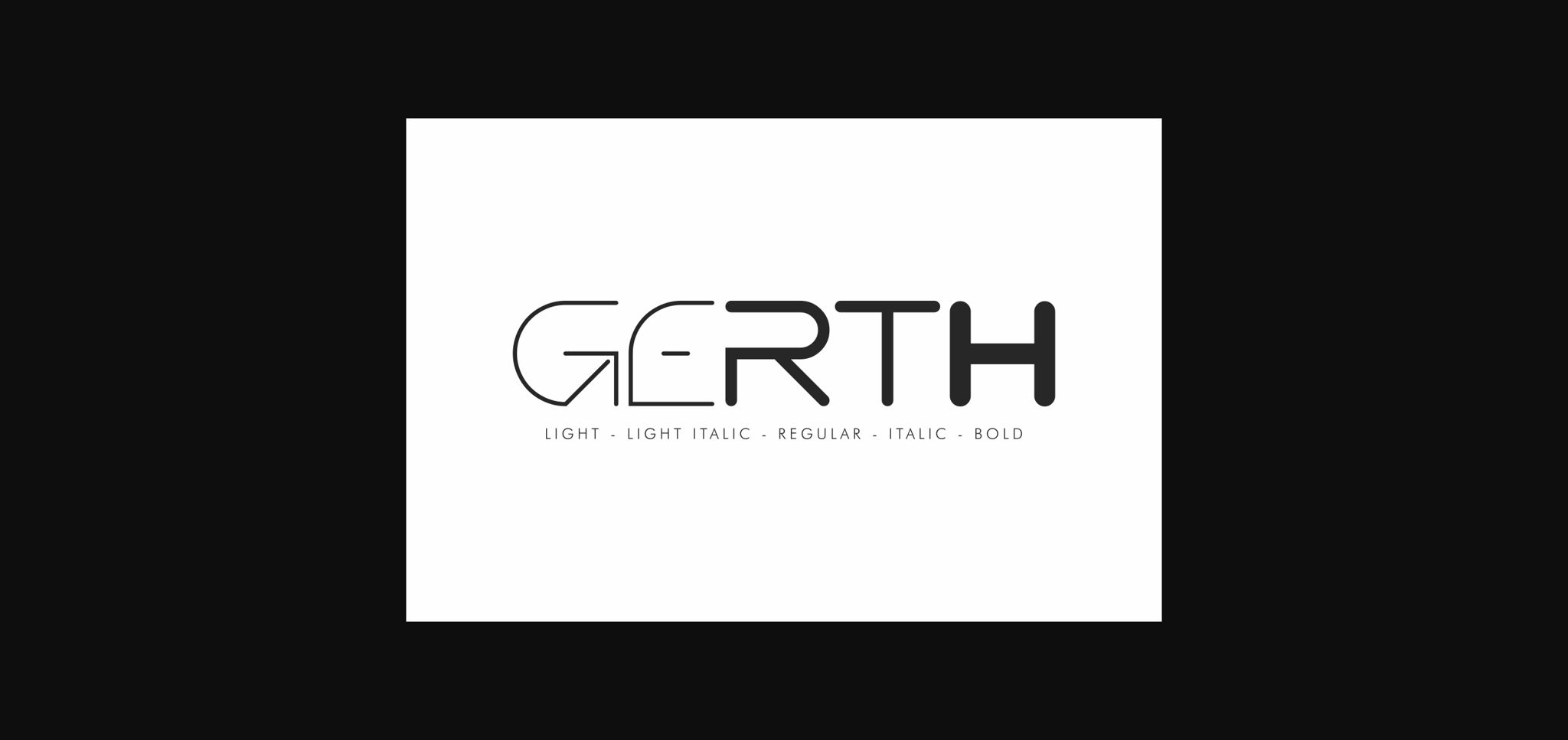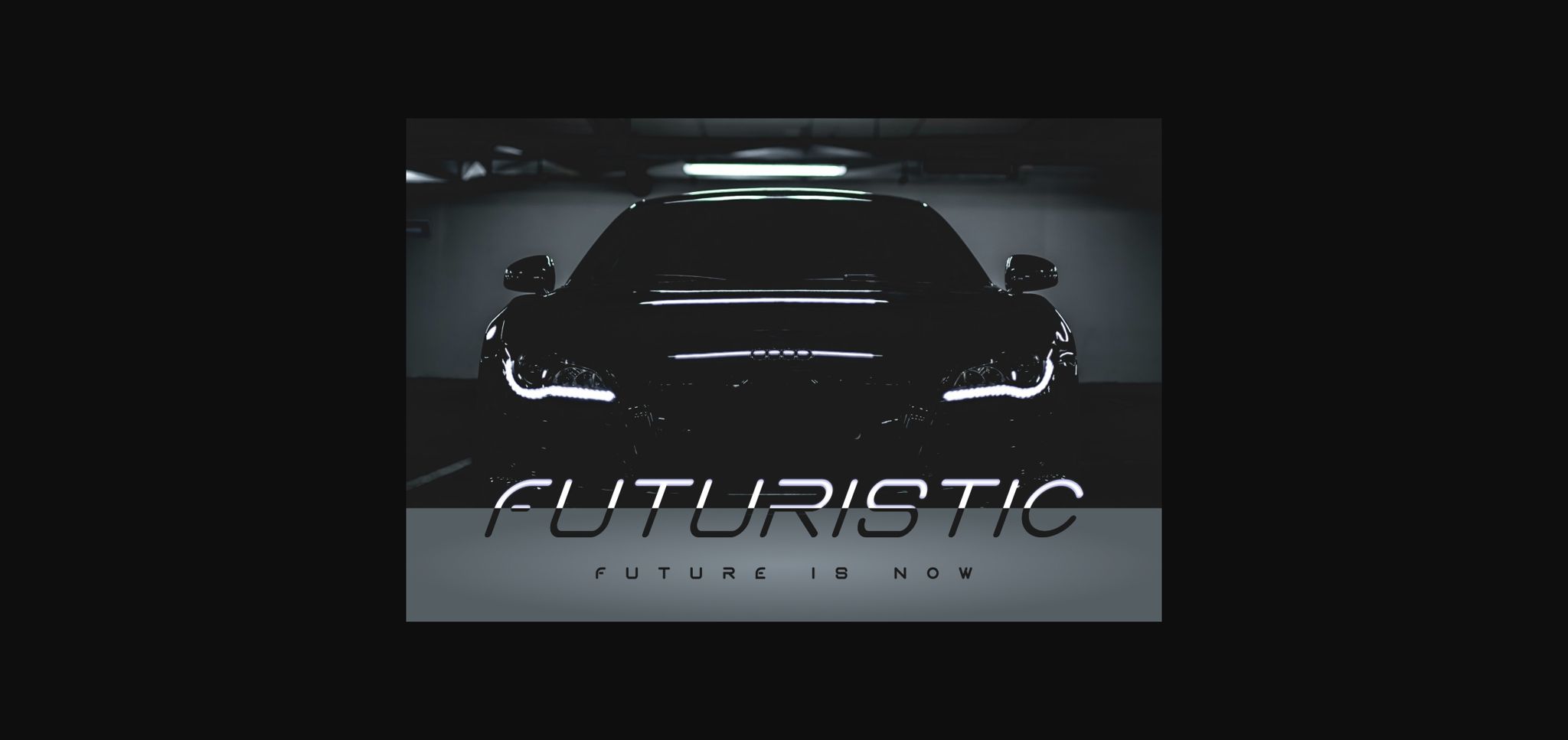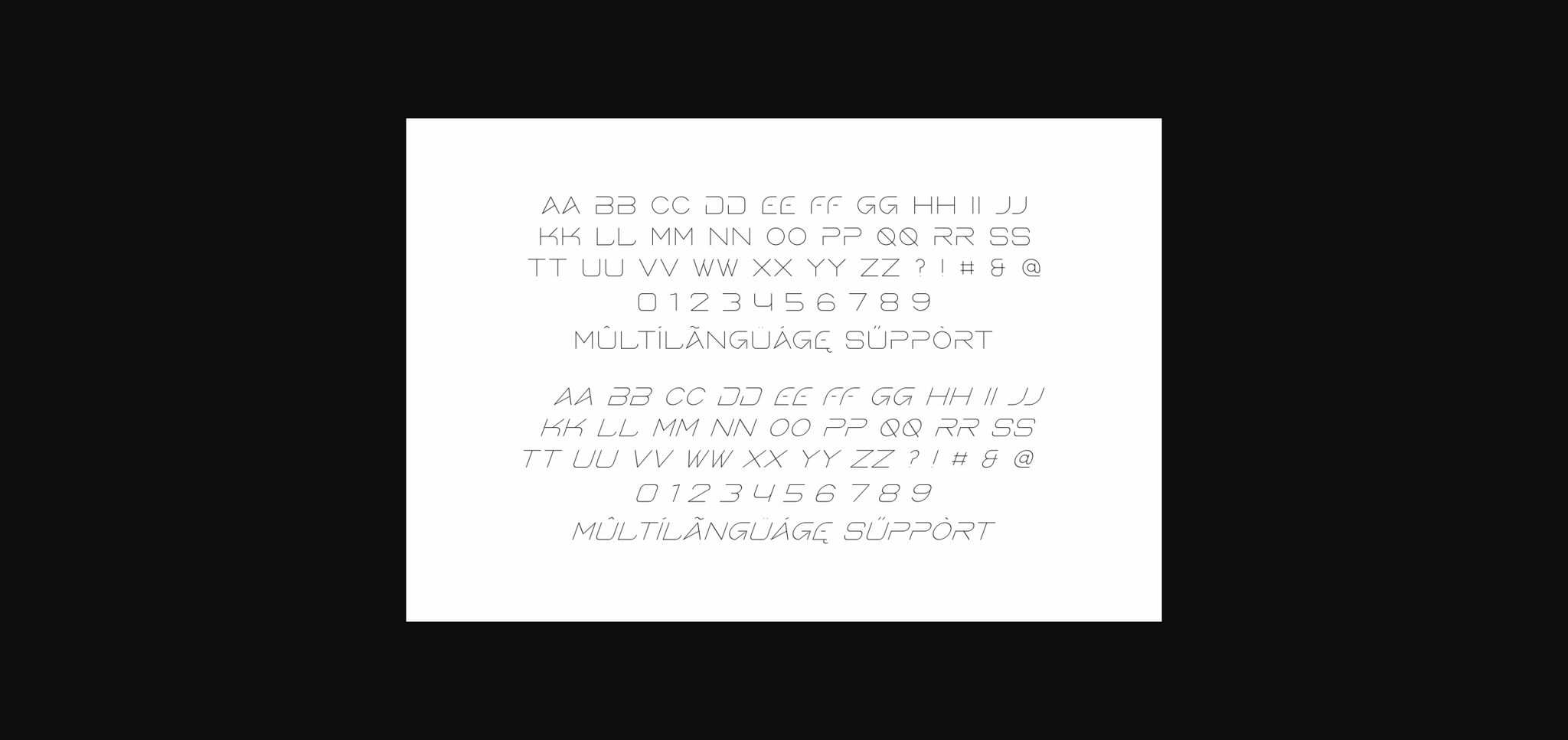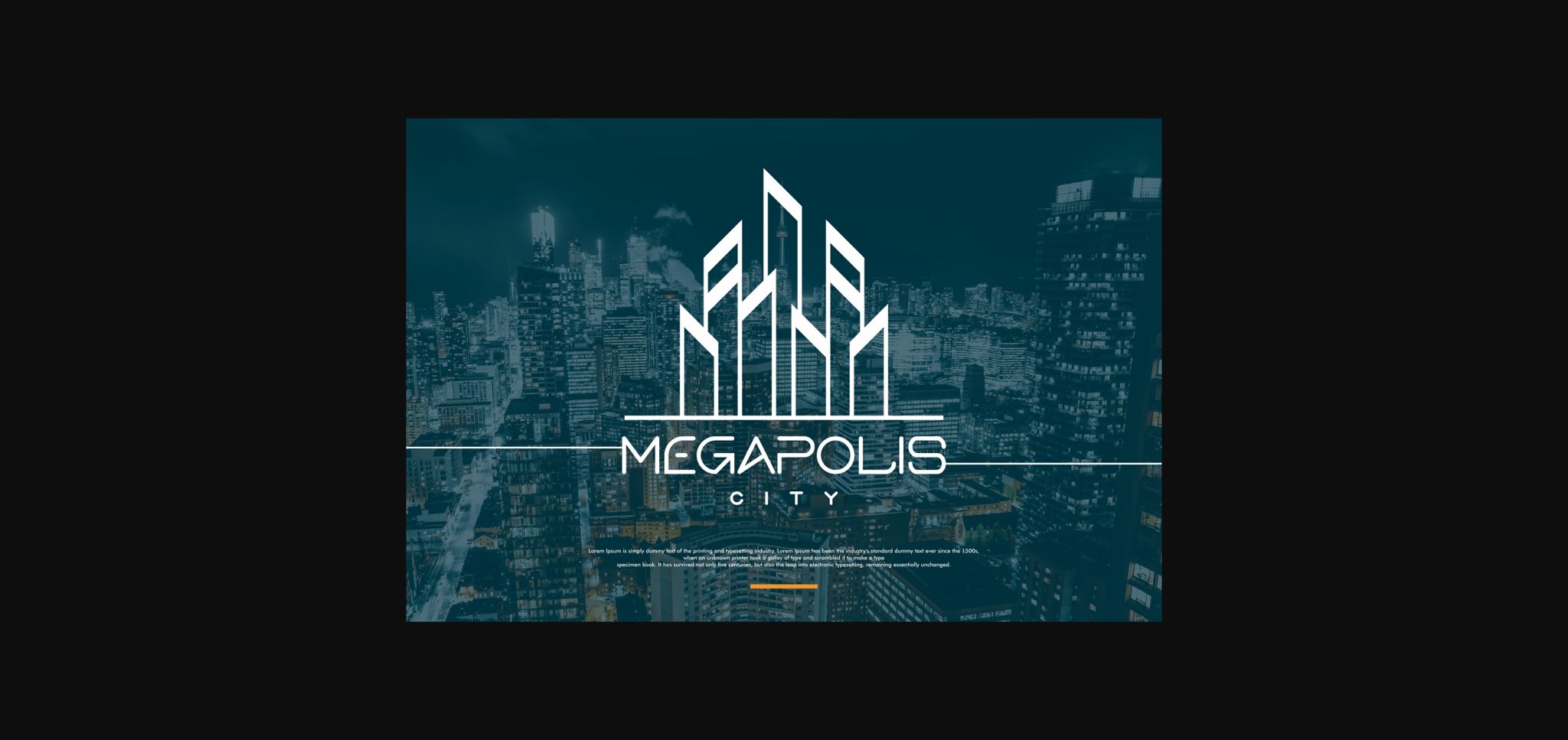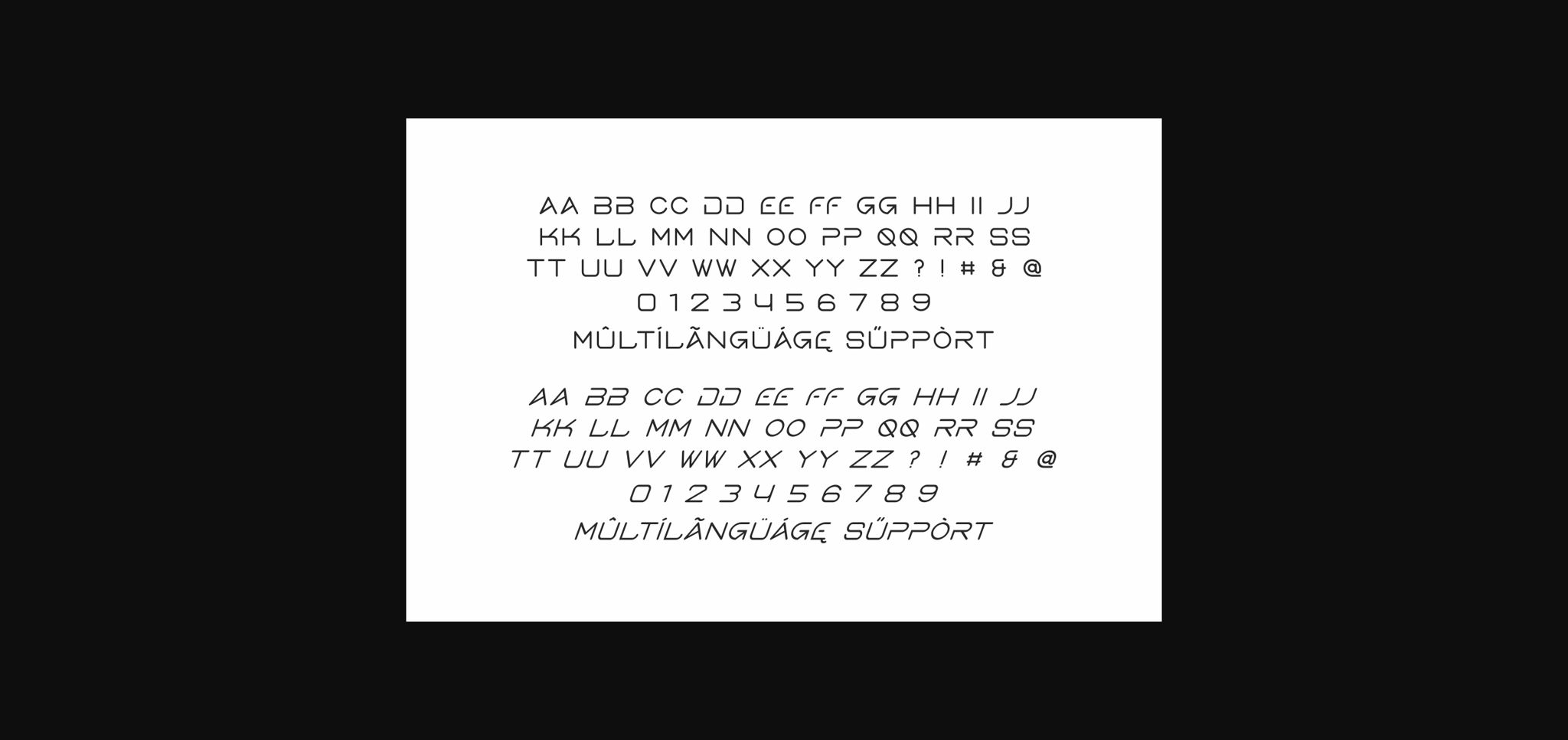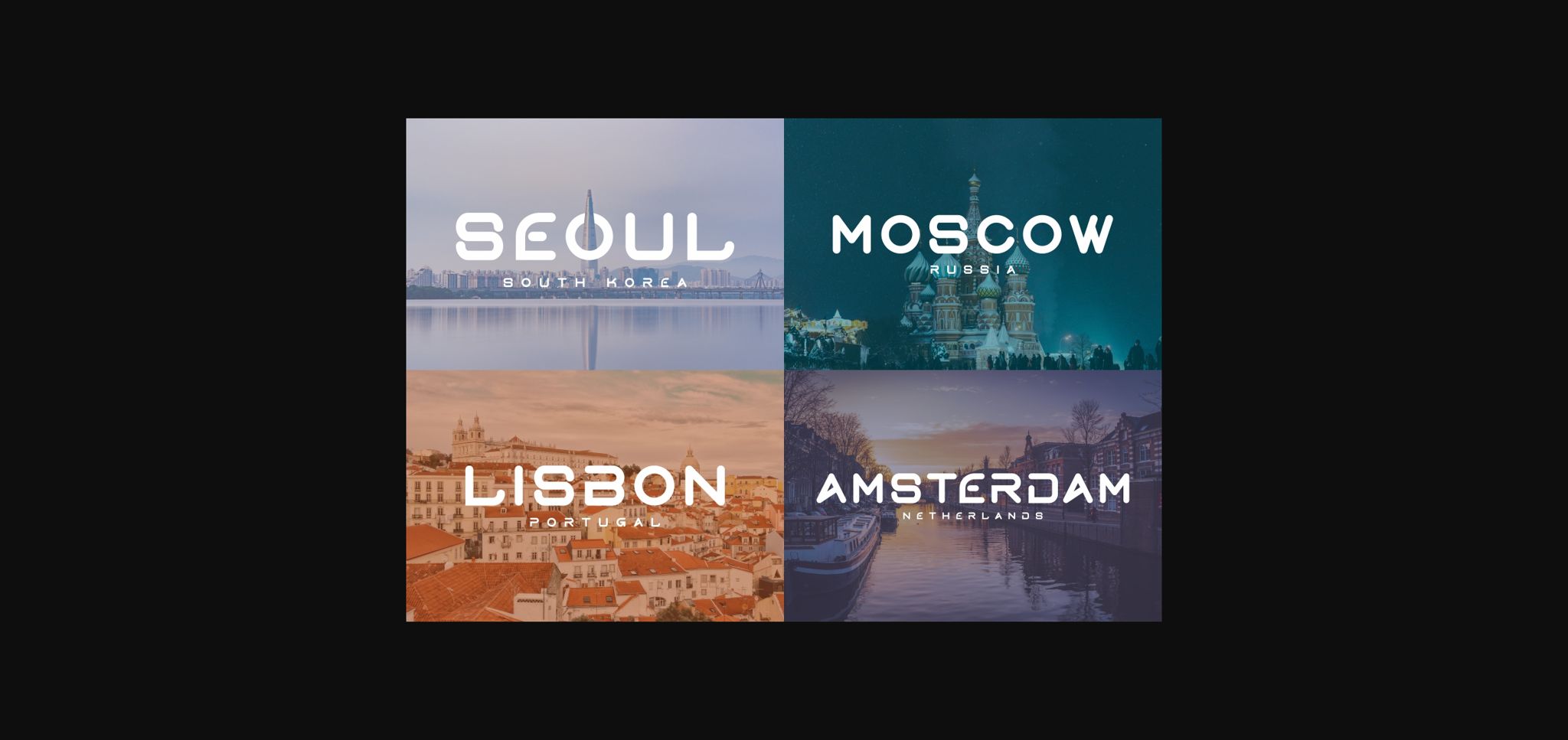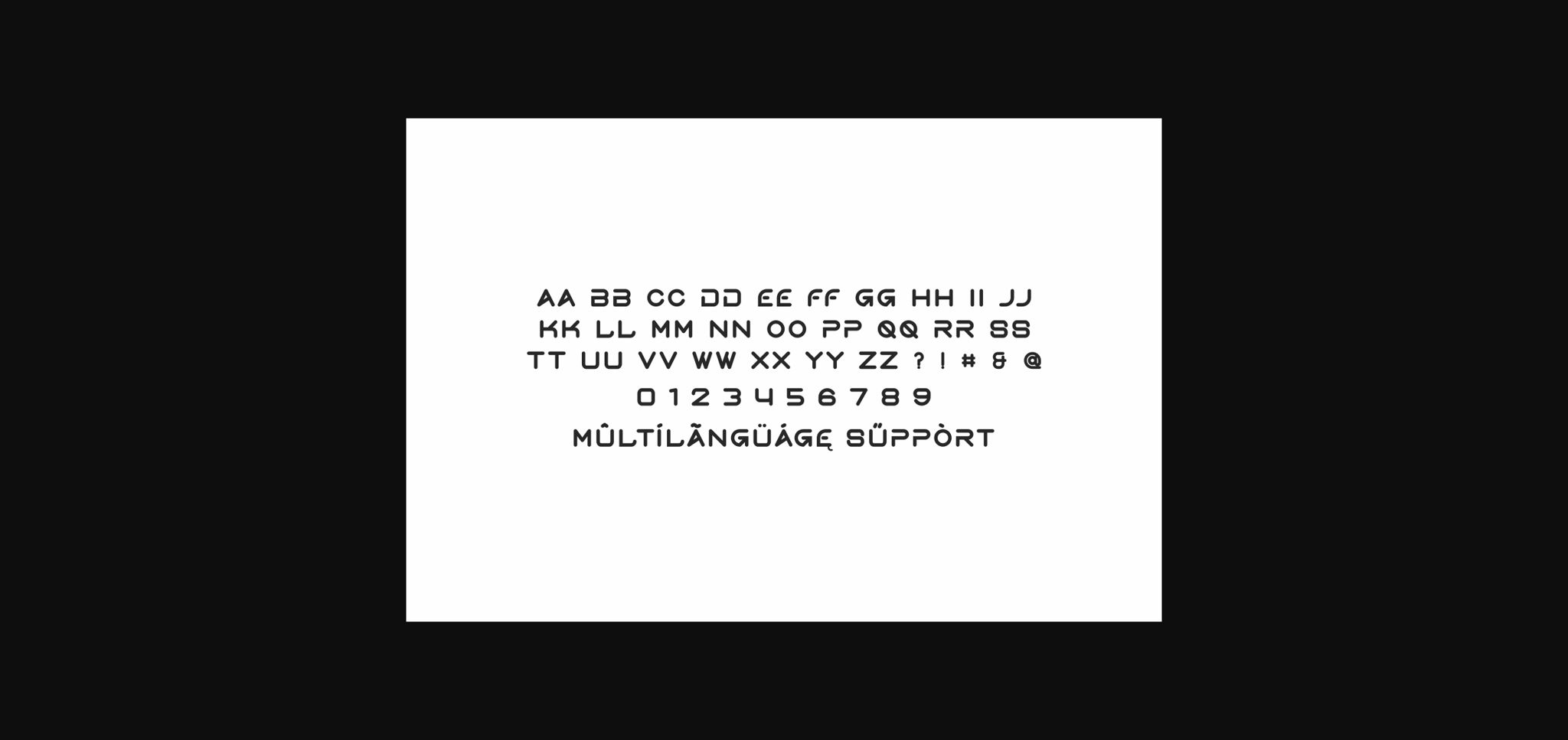
Gerth Font
About Gerth Font
Gerth stands out as an exceptionally original duo sans serif font, offering a unique and versatile style that is sure to captivate designers and audiences alike. With its distinct character and adaptability, Gerth opens up a world of creative possibilities, allowing you to create truly spectacular designs that leave a lasting impression.
What sets Gerth apart is its dual nature, comprising two distinct yet complementary styles within a single font family. This versatility gives you the freedom to explore a wide range of design concepts and applications, from sleek and modern to bold and expressive, all while maintaining a cohesive visual identity.
Whether you’re crafting logos, headlines, branding materials, or web layouts, Gerth’s versatility ensures that it can adapt to any project with ease. Its unique style adds a touch of originality and creativity to your designs, helping them stand out in a crowded marketplace.
Gerth’s versatility extends beyond its aesthetic appeal to its practical utility. Its clean lines and well-defined letterforms ensure readability and legibility across various platforms and mediums, whether it’s viewed on screens or in print. This ensures that your message is communicated effectively to your audience, enhancing engagement and retention.
Furthermore, Gerth’s originality makes it a valuable asset for creating memorable and impactful designs. Whether you’re working on a branding project, a marketing campaign, or a digital product, Gerth’s distinctive style helps you make a statement and leave a lasting impression on your audience.
In summary, Gerth is more than just a font; it’s a powerful design tool that empowers you to unleash your creativity and create spectacular designs that stand out from the crowd. With its incredibly versatile style and originality, Gerth offers endless possibilities for crafting visually stunning and impactful creations. Embrace the uniqueness of Gerth and watch as your designs come to life with style and sophistication.